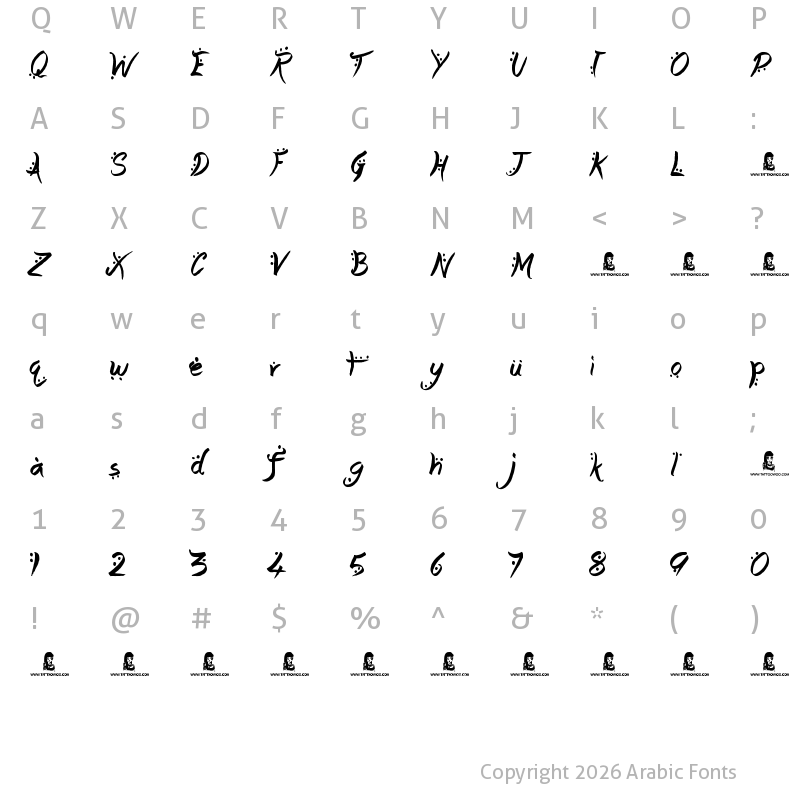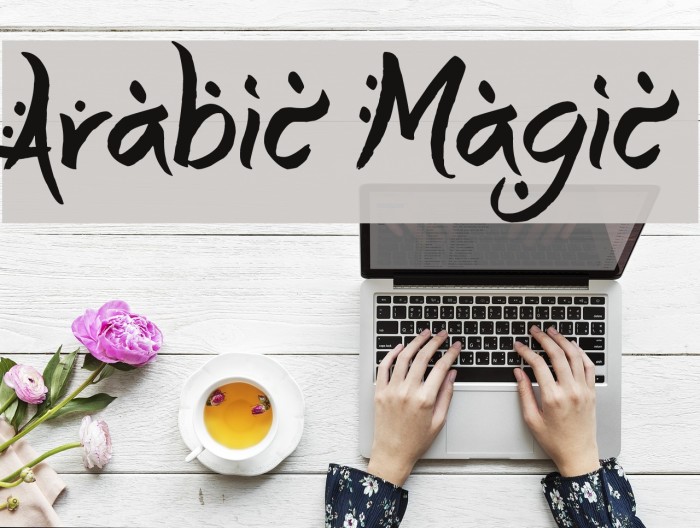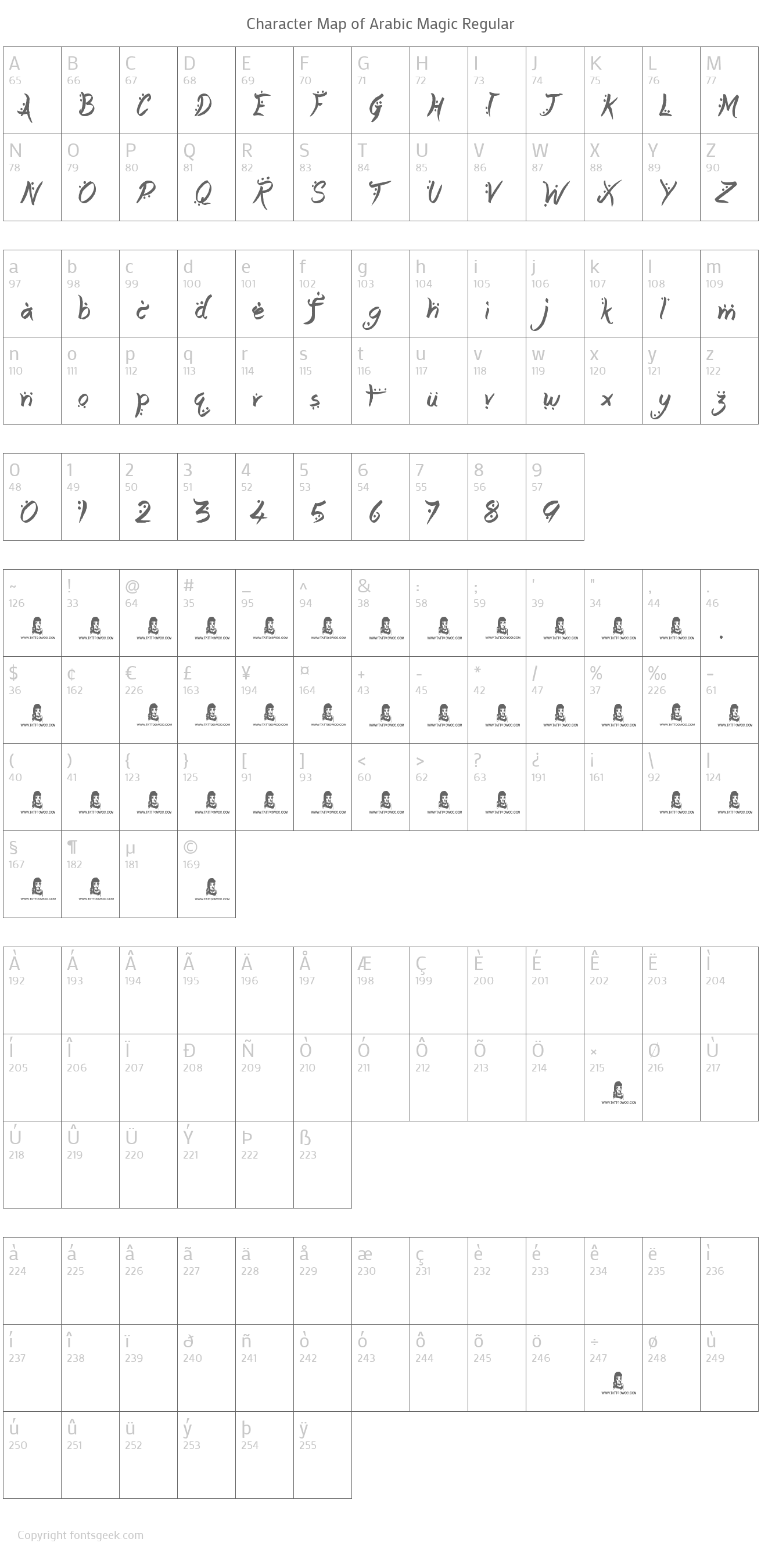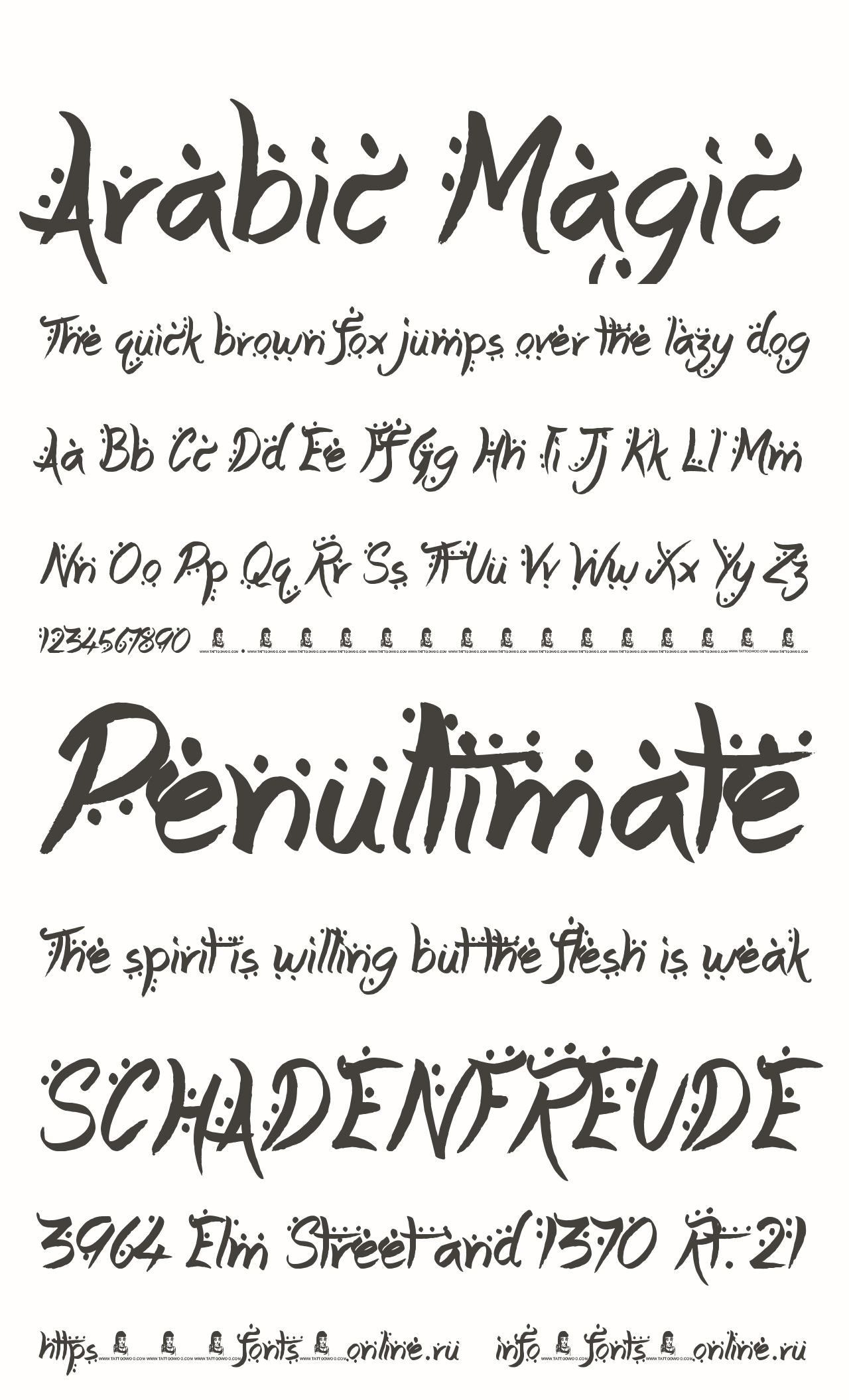
Arabic Magic Font
Arabic Magic free font Font Arabic Magic Free download of arabic magic font. Arabic magic.ttf windows and mac os x compatible. Arabic magic font download is available free from fontget. Free arabic magic font download. In foreign look > arabic. 307,711 downloads (27 yesterday) free for personal. To learn more about the font and typography of the arabic magic font, simply enter the text in the field. Font Arabic Magic.
Download free Arabic Magic Regular font Arabic Magic.ttf Font Arabic Magic Arabic magic is a foreign look type font that can be used on any device such as pc,. Arabic magic by jsh creates. Released in 2013 by jonathan s. Arabic magic font download is available free from fontget. Download and install the arabic magic font by jonathan s. In foreign look > arabic. Free arabic magic font download. To learn. Font Arabic Magic.
Arabic Magic Font download free Font Arabic Magic To learn more about the font and typography of the arabic magic font, simply enter the text in the field below and click generate. Released in 2013 by jonathan s. Free arabic magic font download. The arabic magic font has been downloaded 25,819 times. Download and install the arabic magic font by jonathan s. In foreign look > arabic. Arabic. Font Arabic Magic.